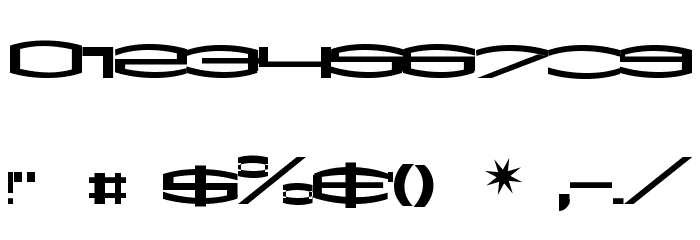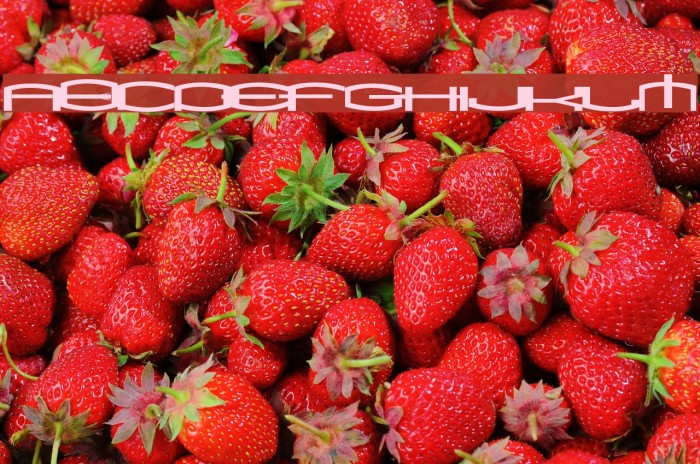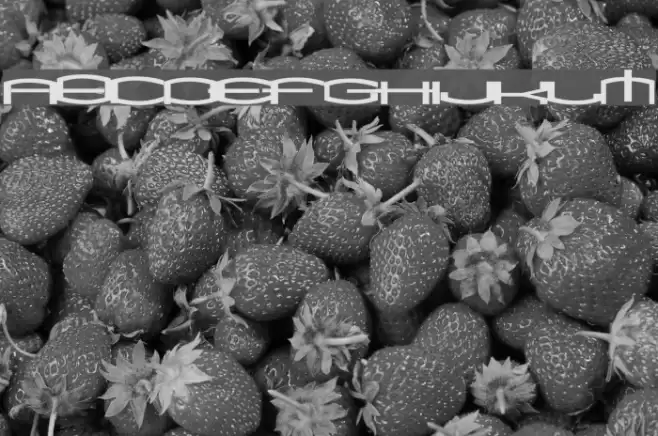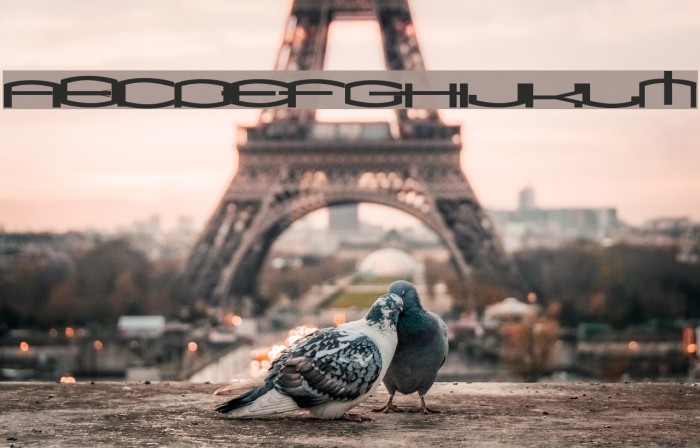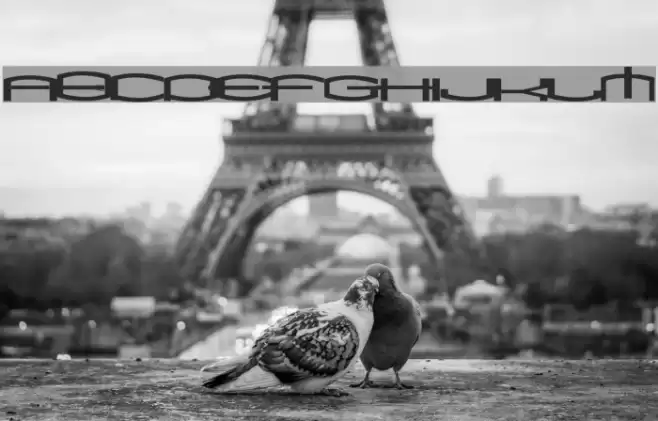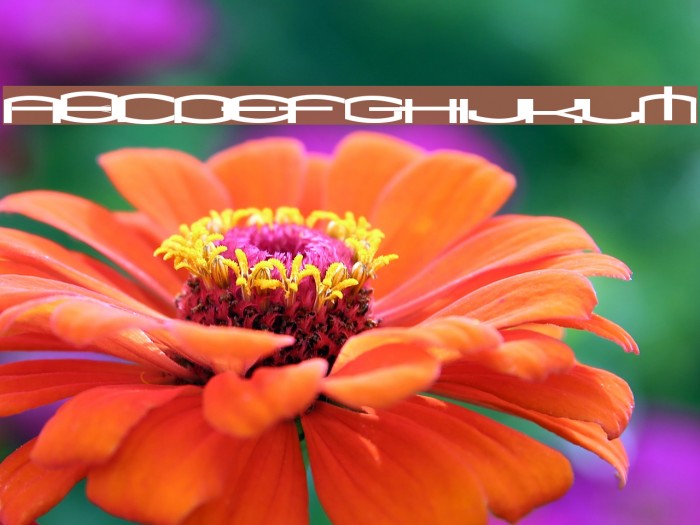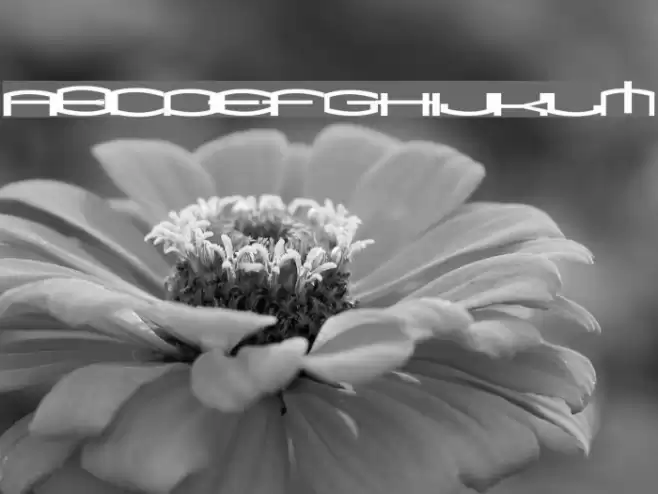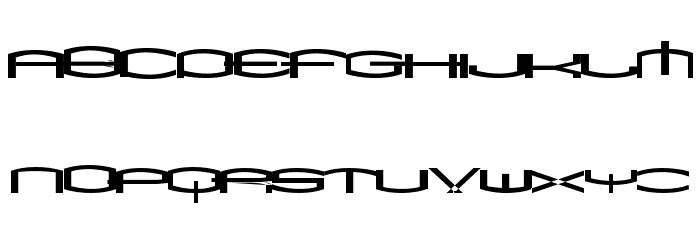
ShakeDown SemiBold Font
ShakeDown SemiBold Description
This font features a unique and futuristic design with elongated and interconnected letterforms. The characters have a distinct geometric style, with sharp angles and a consistent horizontal alignment that creates a sense of movement and modernity. The uppercase and lowercase letters share similar design traits, enhancing the cohesive look of the typeface. The numbers and special characters maintain the same aesthetic, ensuring uniformity across all glyphs. This font's bold and striking appearance makes it suitable for attention-grabbing designs.
Use CaseHeadlines, Logos, Posters
Proposed ProjectsIdeal for sci-fi themed projects, modern branding, tech-related designs, and futuristic posters.